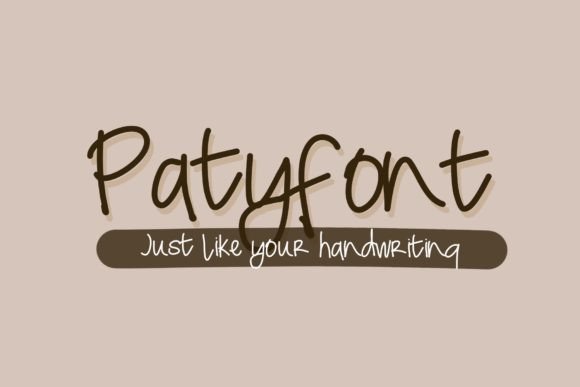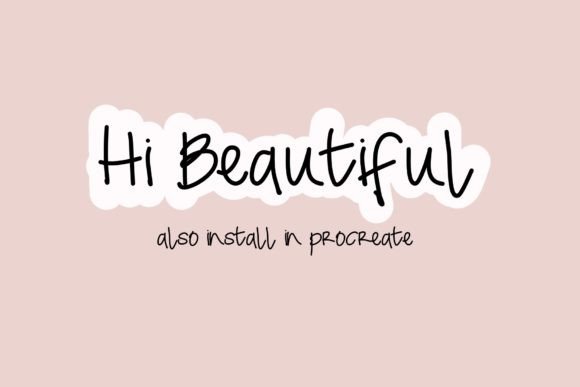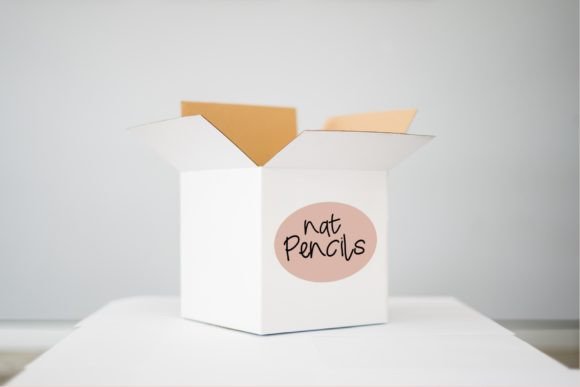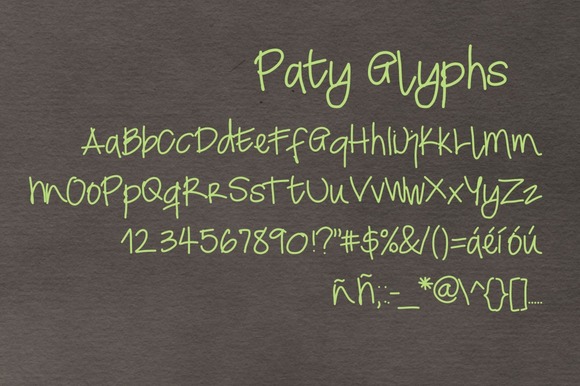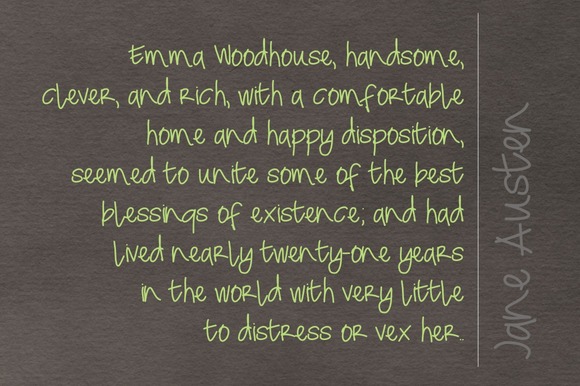
Paty Font
About Paty Font
Paty Font is a casual and quick handwriting font.
This beautiful font can be used for various purposes such as headings, logos, posters, book covers, mugs, bags, newspapers, invitations, and much more!